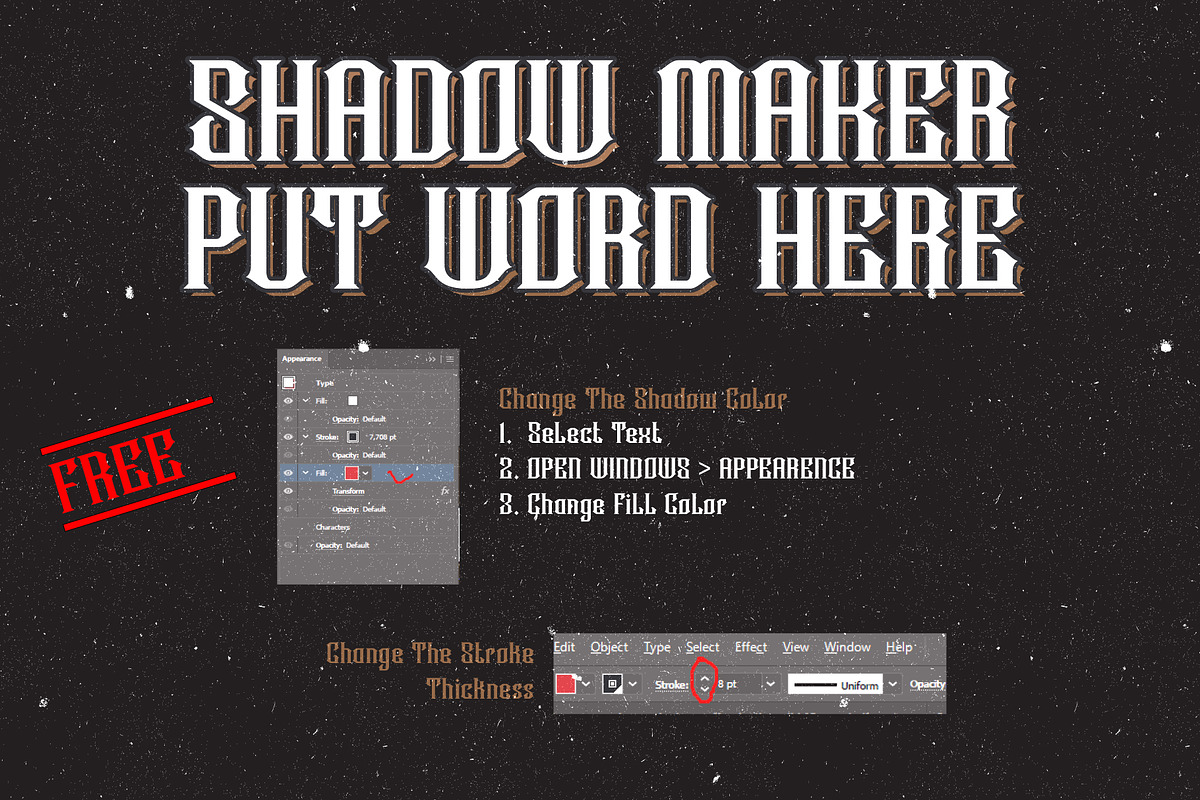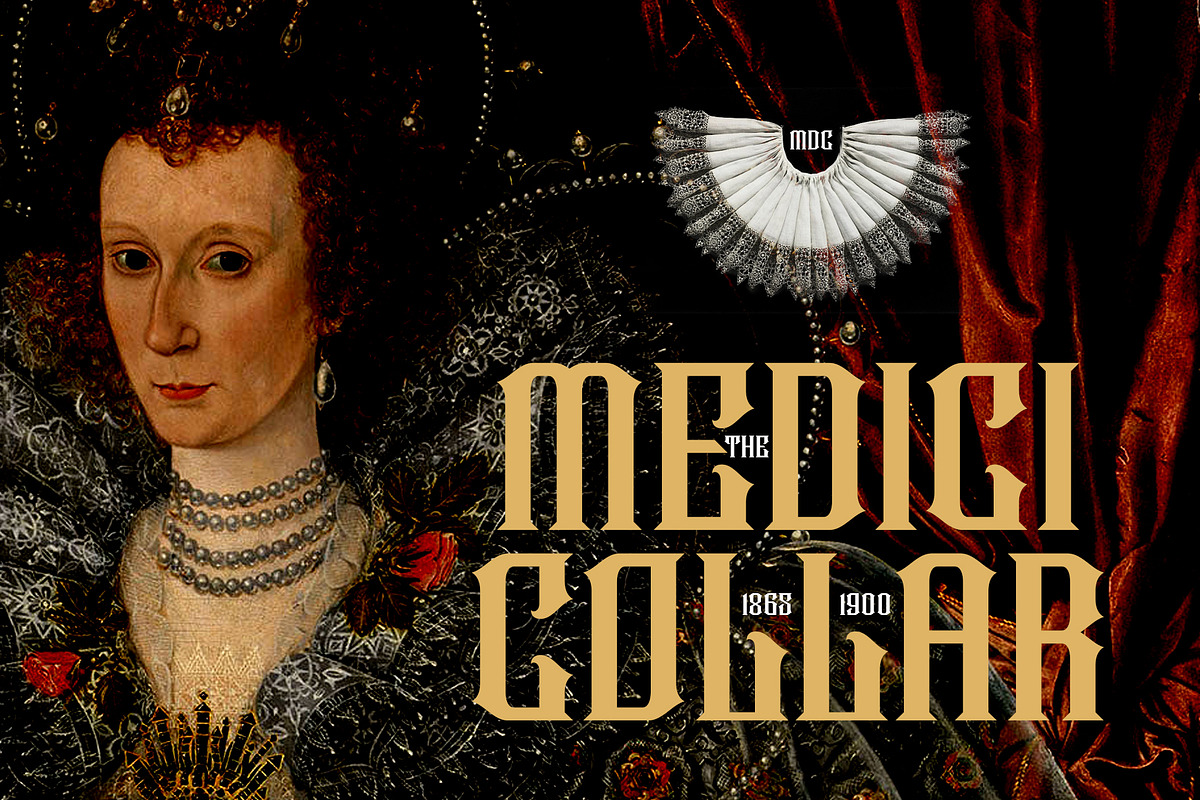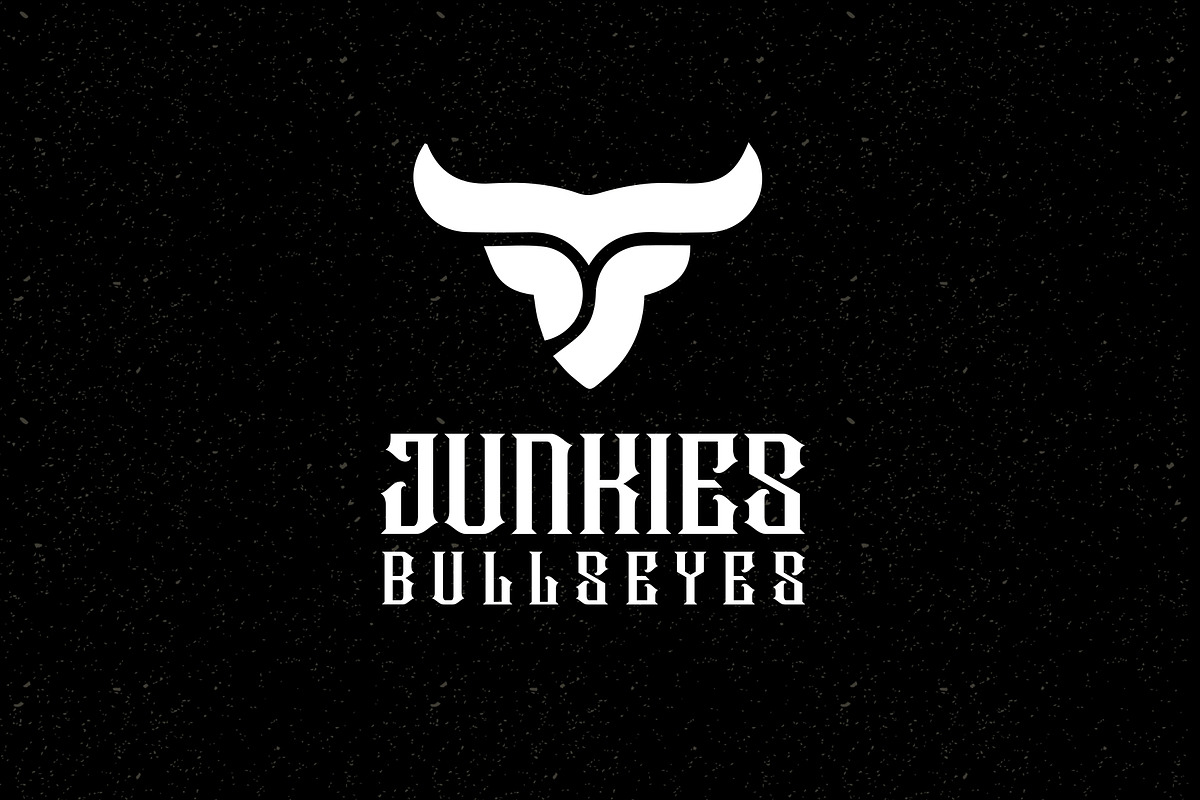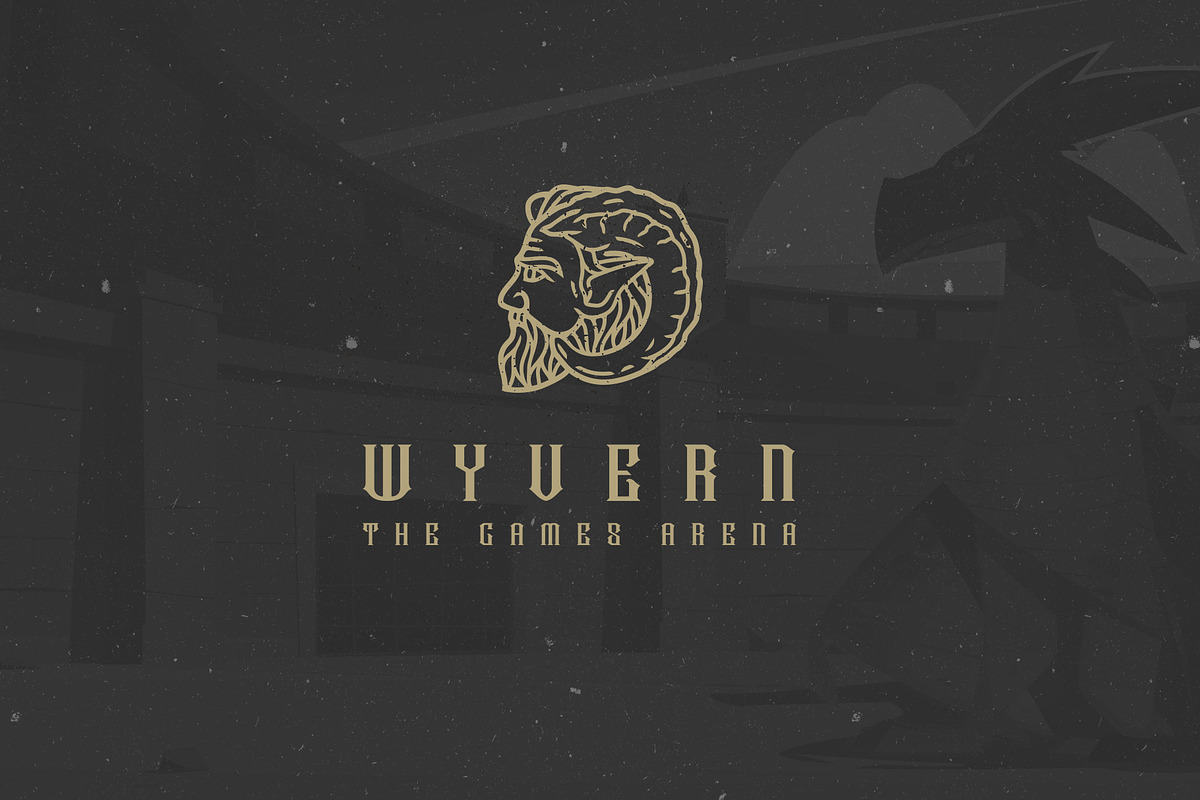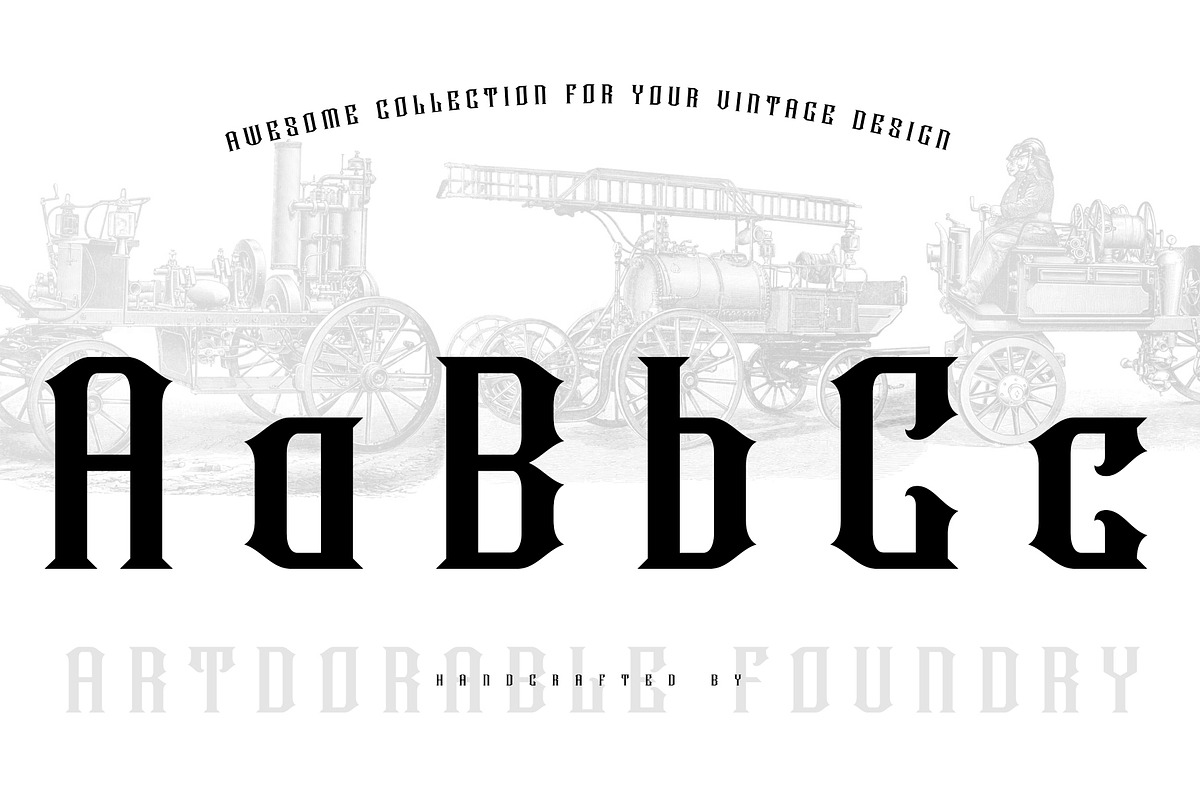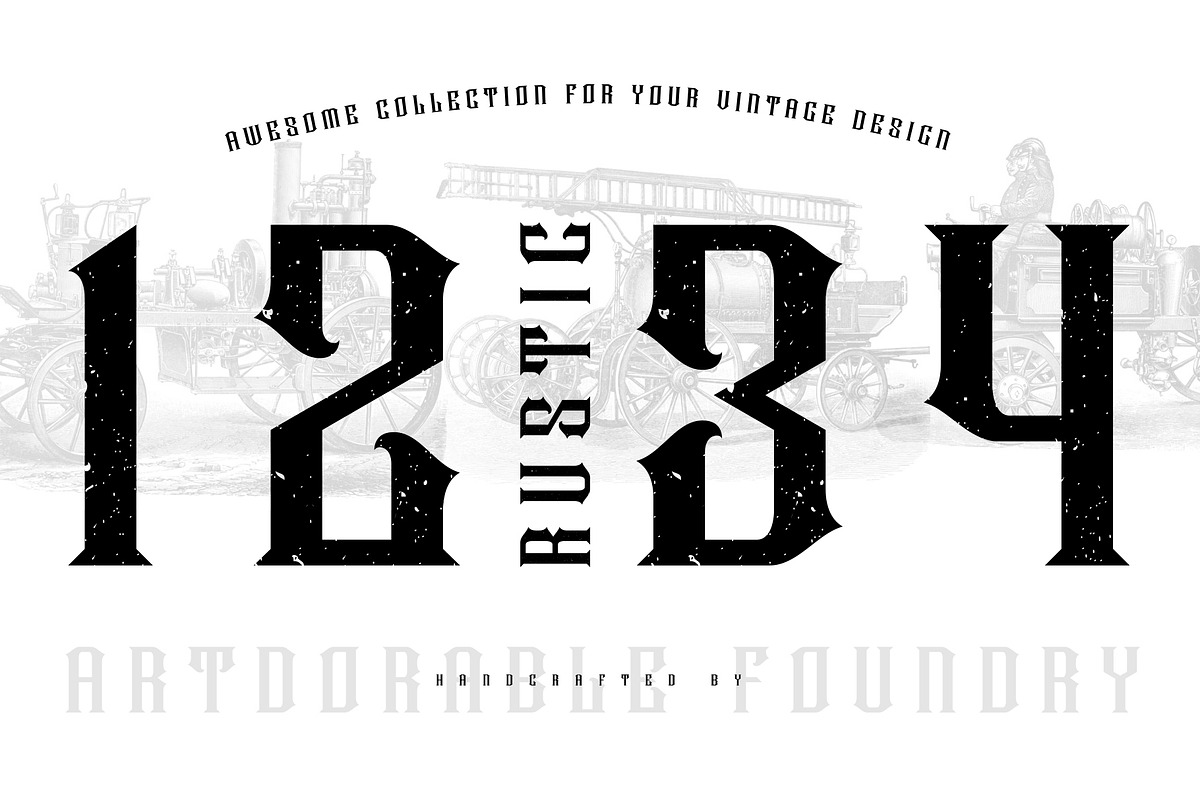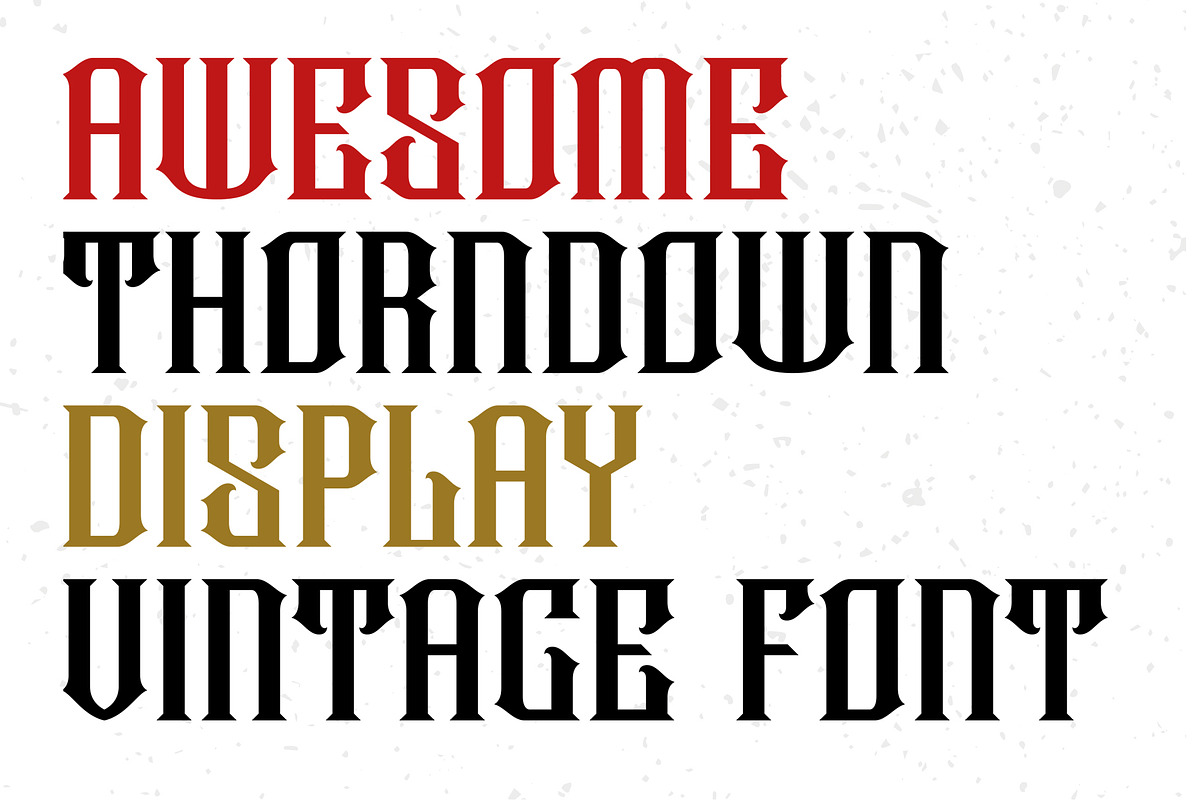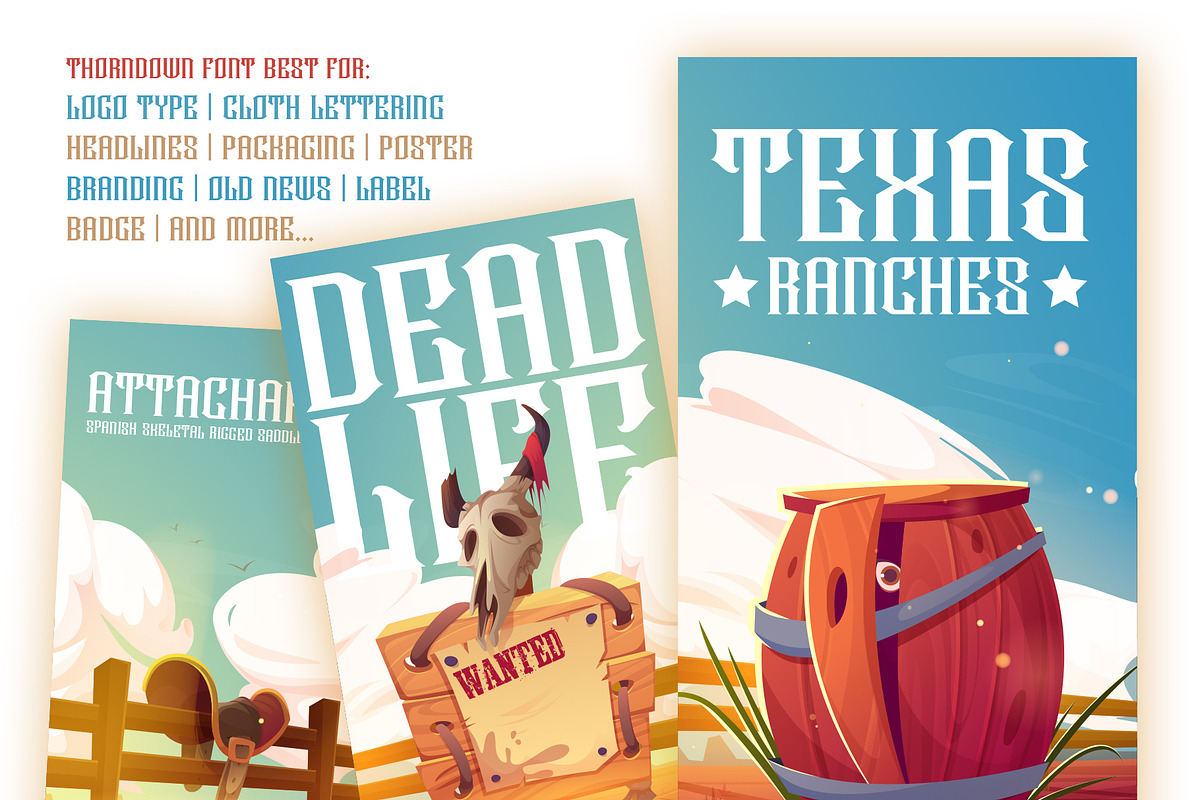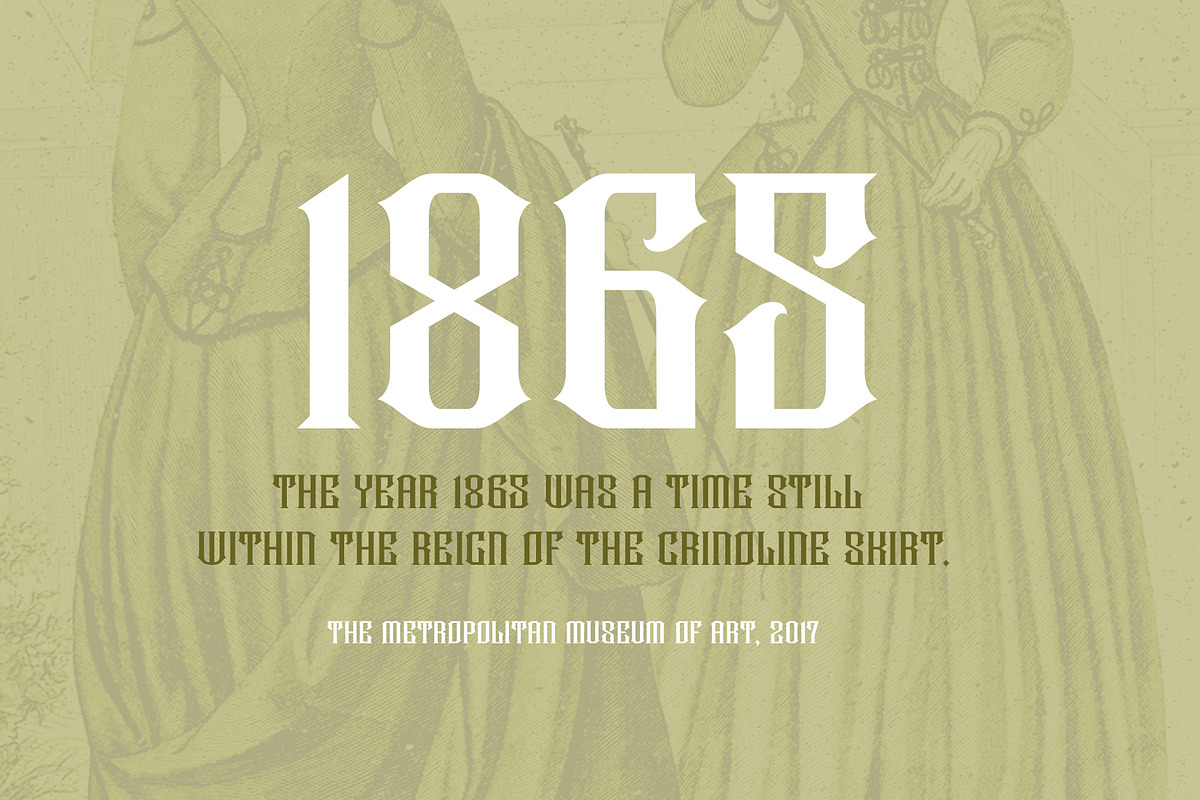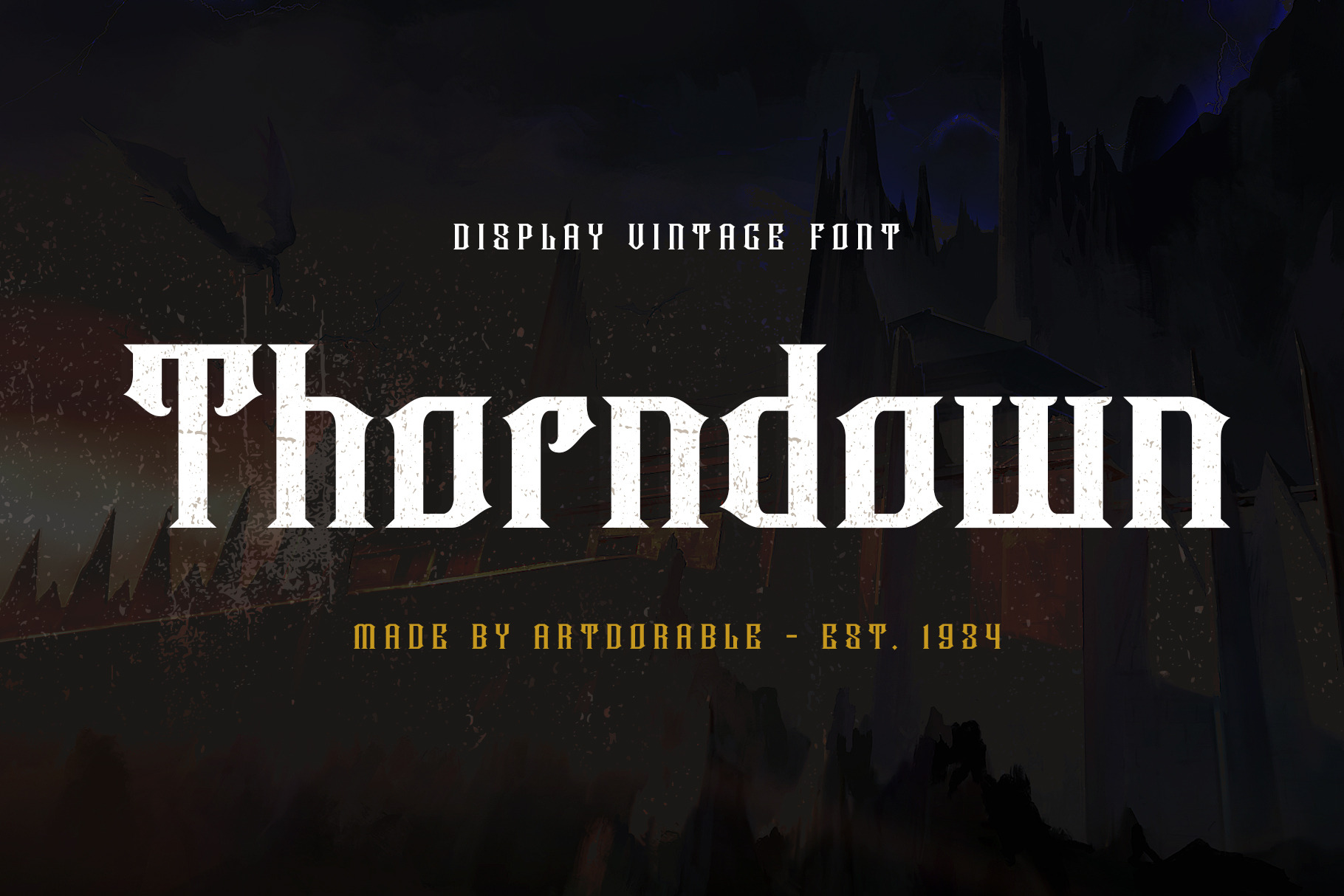
Thorndown - Vintage Display Font
Thorndown - Vintage Display Font an old style font made carefully handcrafted come-up with two different styles Thorndown Reguler and Thorndown Rustic. The complete type from Caps and Lower Caps, numeric and punctuation. It's also have a modern touch suitable for logo text, branding, poster, old news headline, magazine/publishing, label, badge, packaging, or for any occasion.
Font features:
- All Caps and Small caps for lower case keyboard
- Numeric